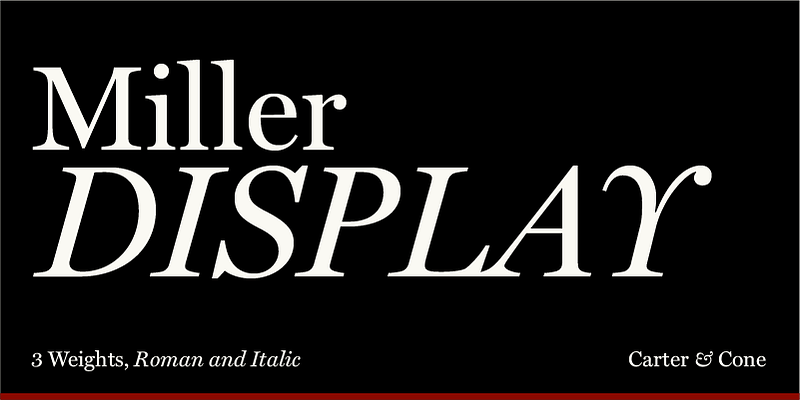
Miller Display Font Free Download is an elegant high-contrast serif typeface designed specifically for large-format settings. A refined companion to Miller Text, this display version amplifies the beauty of 19th-century Scotch Roman styles with sharper serifs, thinner hairlines, and a more dramatic visual impact—perfect for magazine headlines, book covers, editorial mastheads, and luxury branding.
With its graceful curves and stylish proportions, Miller Display Font is crafted to command attention while maintaining the typographic sophistication of its text counterpart. It pairs beautifully with Miller Text for cohesive typographic systems across print and digital layouts.